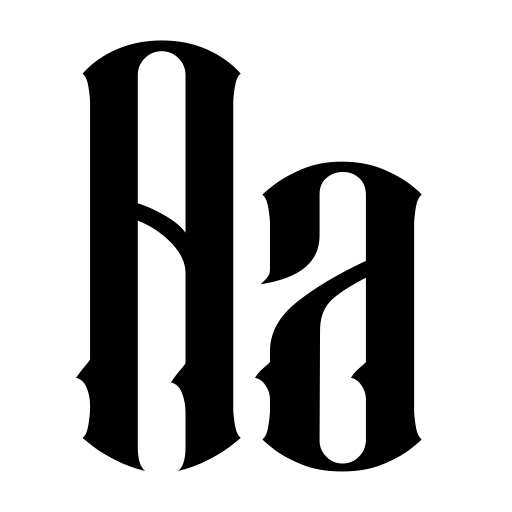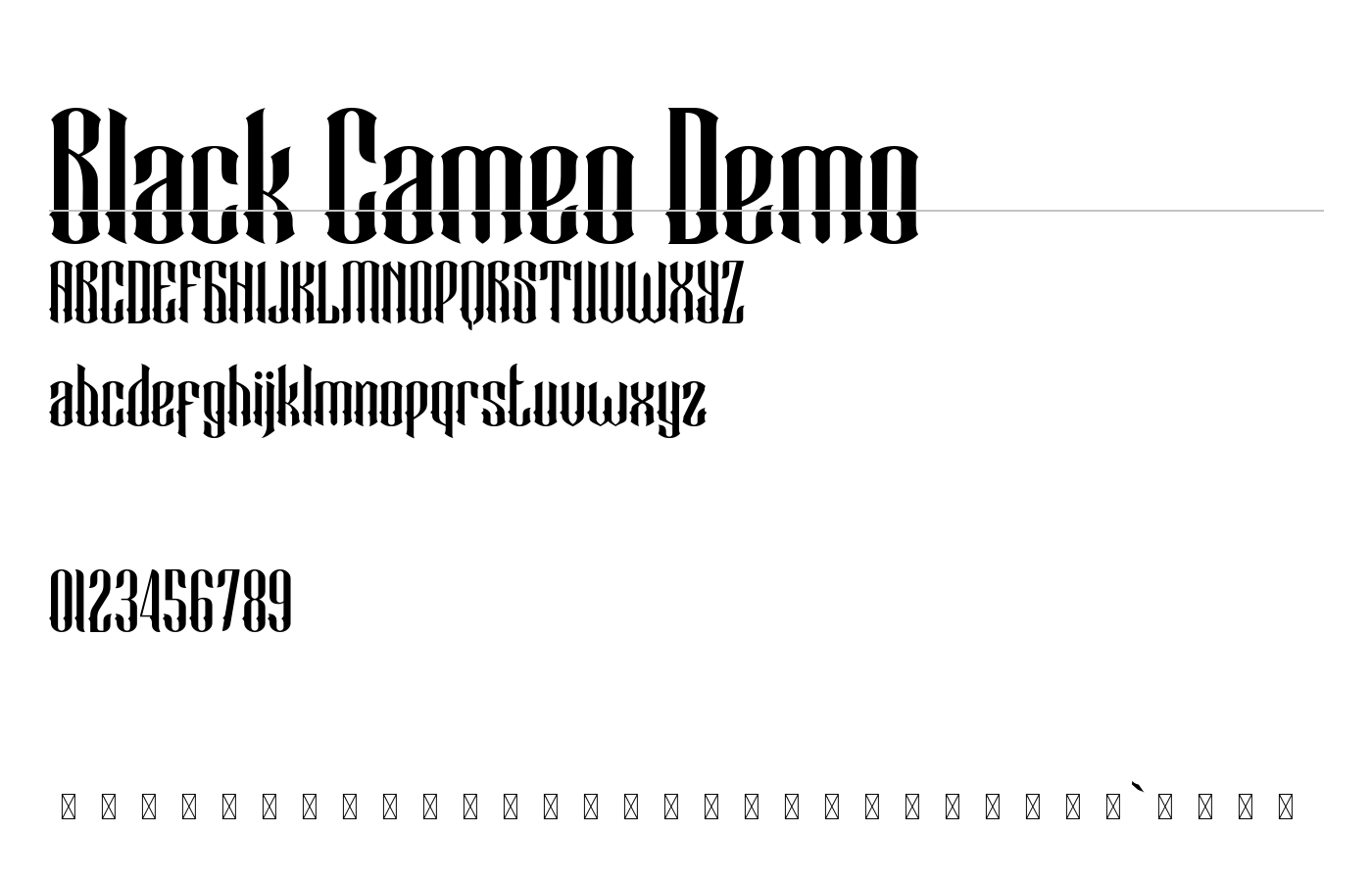
Black Cameo Demo is a bold, condensed serif font with a dramatic and vintage gothic flair. Its high stroke contrast and tall, narrow letterforms create a striking, elegant presence that suits sophisticated branding, editorial headlines, and artistic posters. This font conveys a sense of luxury and timeless style, making it ideal for fashion, packaging, and display purposes where a strong, memorable impact is desired.
Black Cameo Demo Font
About Black Cameo Demo Font
| Font family | Black Cameo Demo Font |
| Designer | Kadek Adi Mahardika |